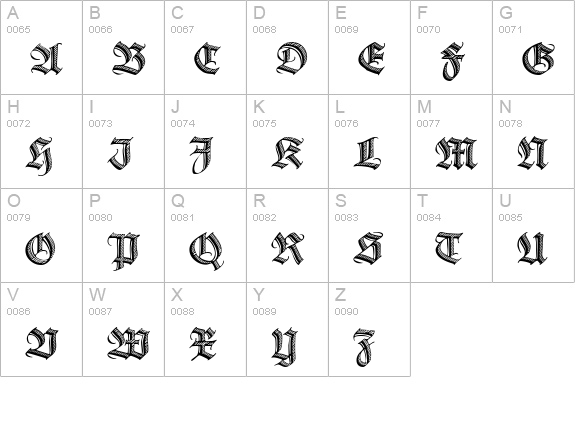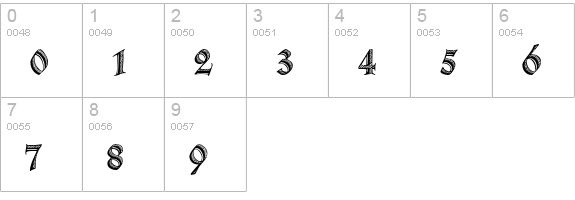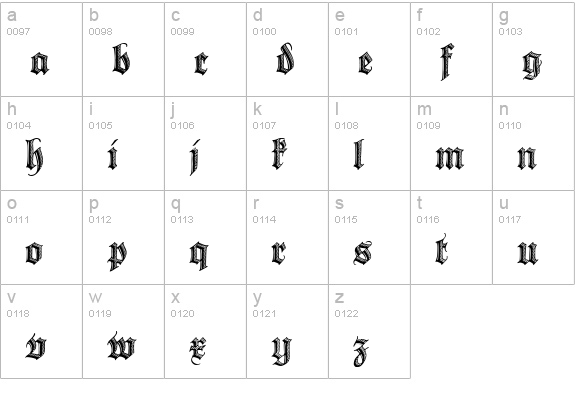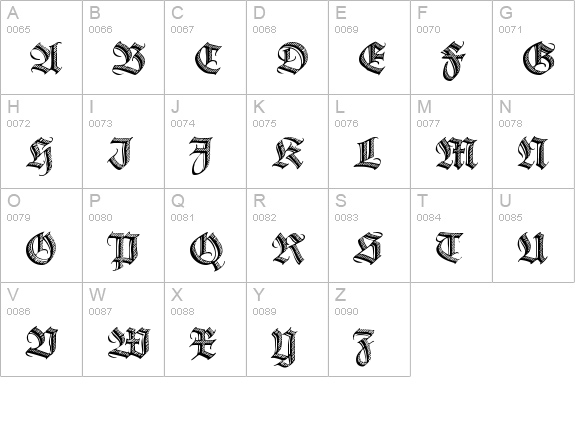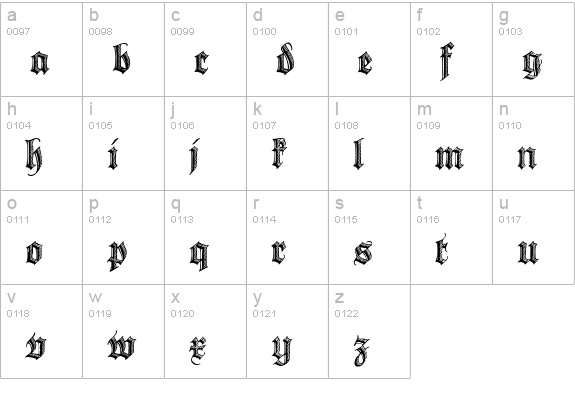
Deutsche Zierschrift, a beautifully crafted and ornate font, is a true testament to the elegance of calligraphy. With its delicate strokes and intricate details, this font embodies the sophistication and grace of traditional German lettering. Designed with meticulous attention to detail, Deutsche Zierschrift brings forth a sense of timeless beauty that instantly captivates the eye. Each letter is meticulously hand-drawn, evoking a sense of craftsmanship that is truly unparalleled. From the graceful curves to the fine serifs, every element of this font has been thoughtfully crafted to perfection. Deutsche Zierschrift is not only a visually stunning font, but it also offers a level of versatility that allows it to be used in a wide range of design projects. Whether it is used in invitations, logos, headlines, or any other creative endeavor, this font adds a touch of sophistication and elegance that is sure to leave a lasting impression. One of the greatest benefits of Deutsche Zierschrift is that it is freely available to download at FontsMarket.com. This means that designers and enthusiasts alike can easily access and utilize this exquisite font without any cost. It is a rare opportunity to have such a high-quality font at one's fingertips, and FontsMarket.com has made it possible for everyone to enjoy the beauty and versatility of Deutsche Zierschrift. In conclusion, Deutsche Zierschrift is a font that exudes timeless beauty and sophistication. Its intricate details and elegant design make it a perfect choice for any design project. And with the added advantage of being freely available at FontsMarket.com, there is no reason not to embrace the charm and allure of Deutsche Zierschrift in your next creative endeavor.